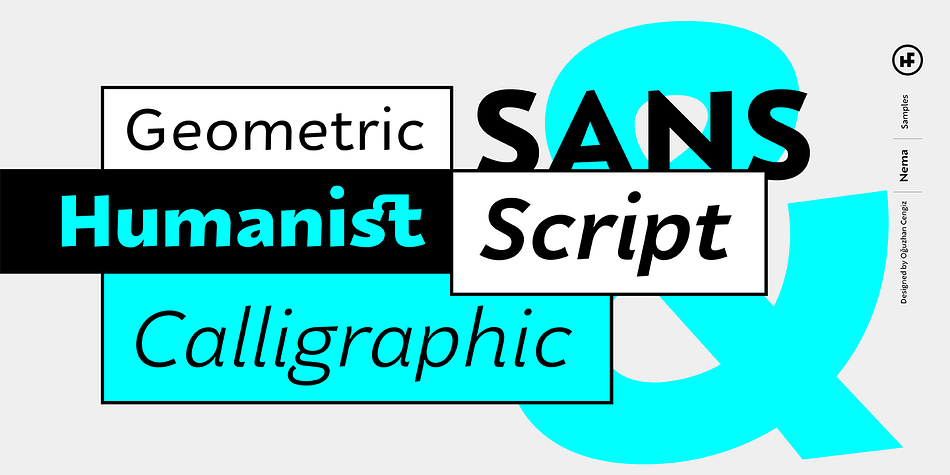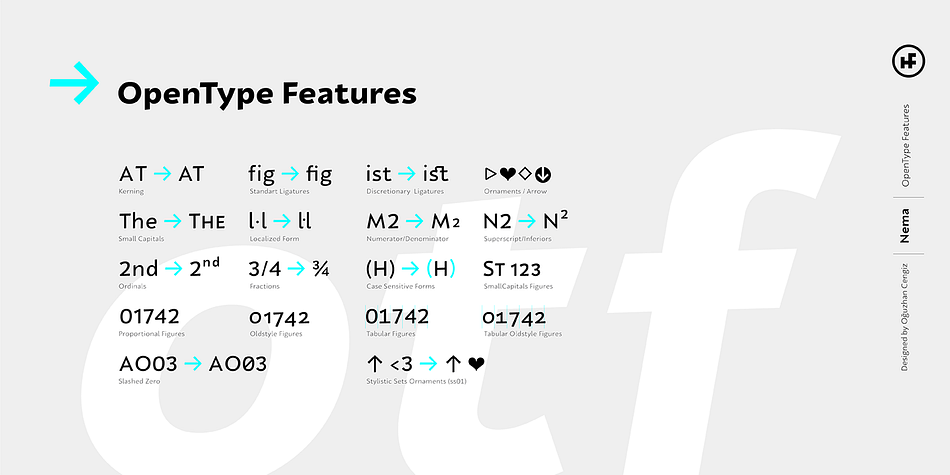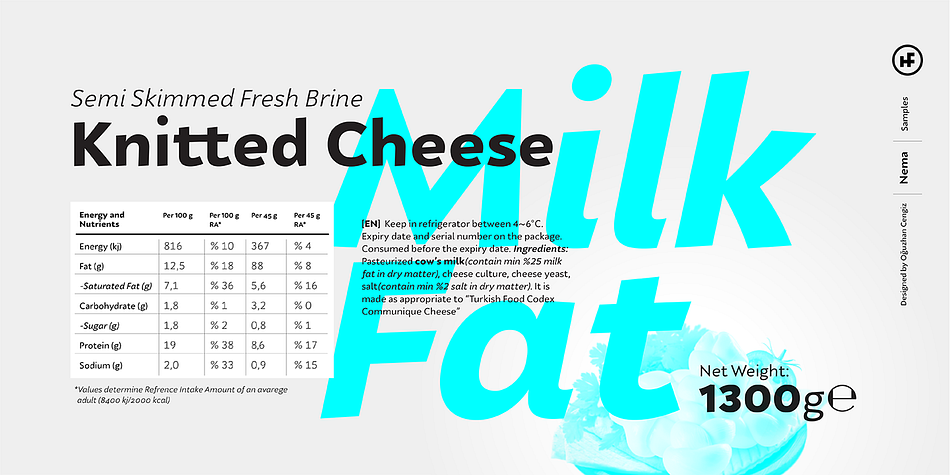
Nema
Designed by Oğuzhan Cengiz, Nema is a sans serif font family. This typeface has fourteen styles and was published by Hurufatfont Type Foundry.
Nema is a sans serif family built in calligraphic structure. It consists of 14 styles including 7 weights and italics. Even if the character structure is constructed in classical geometric proportions, some letters were treated flexibly.